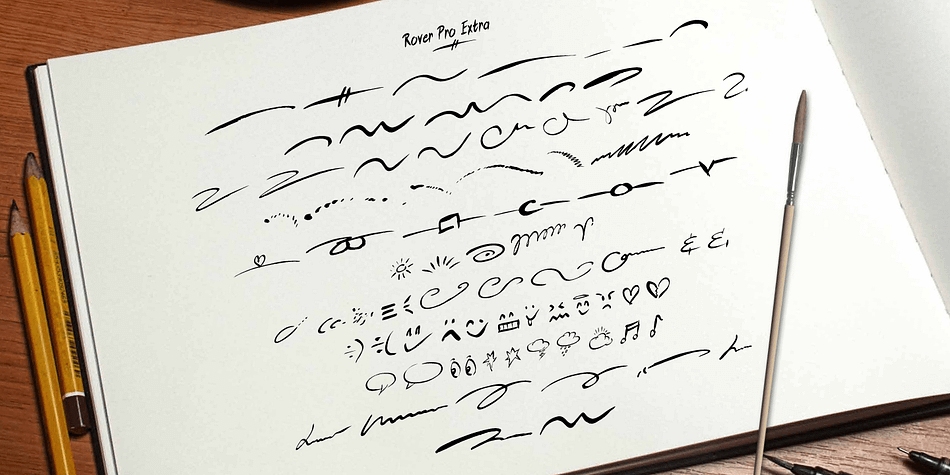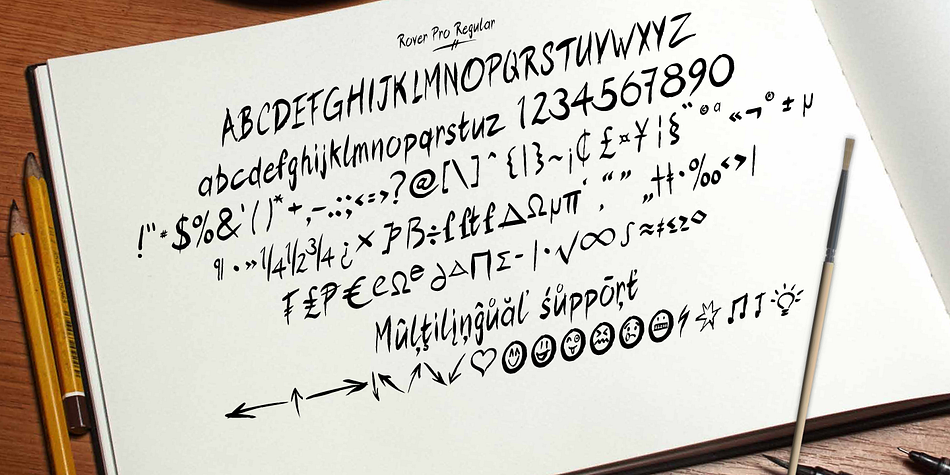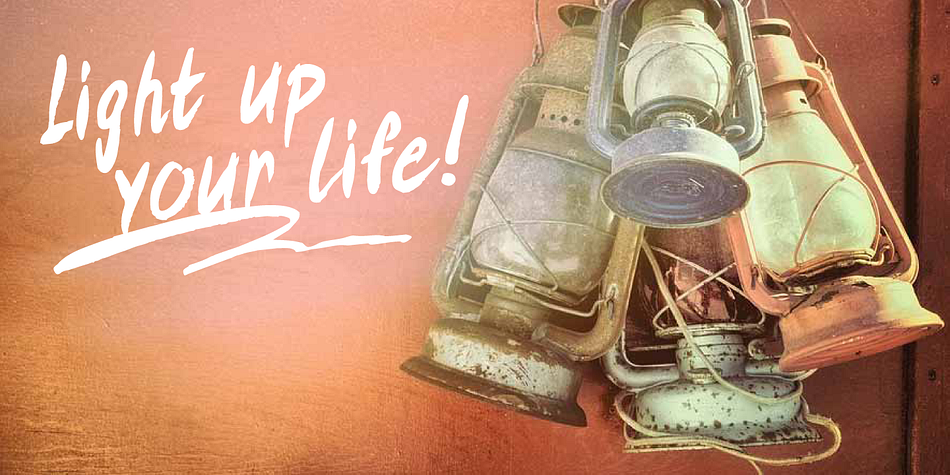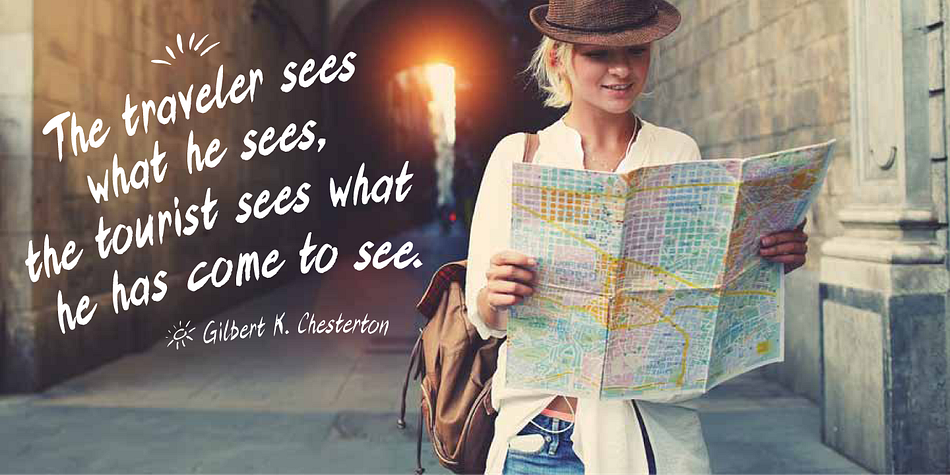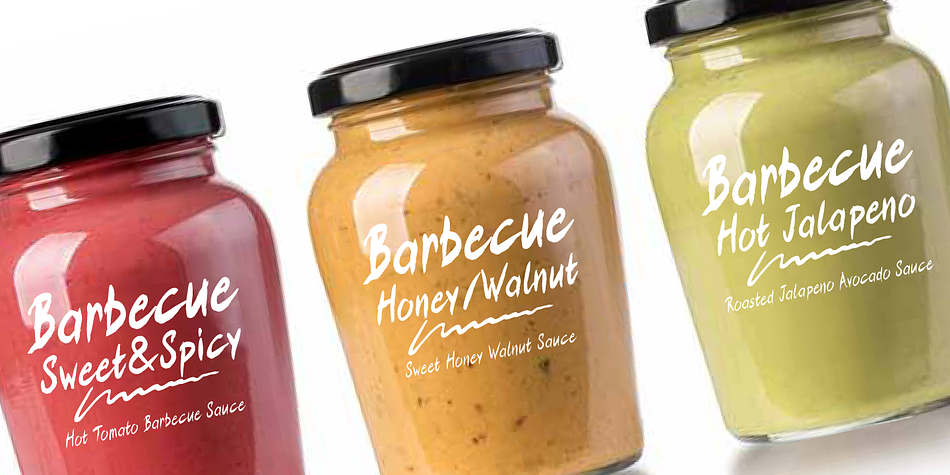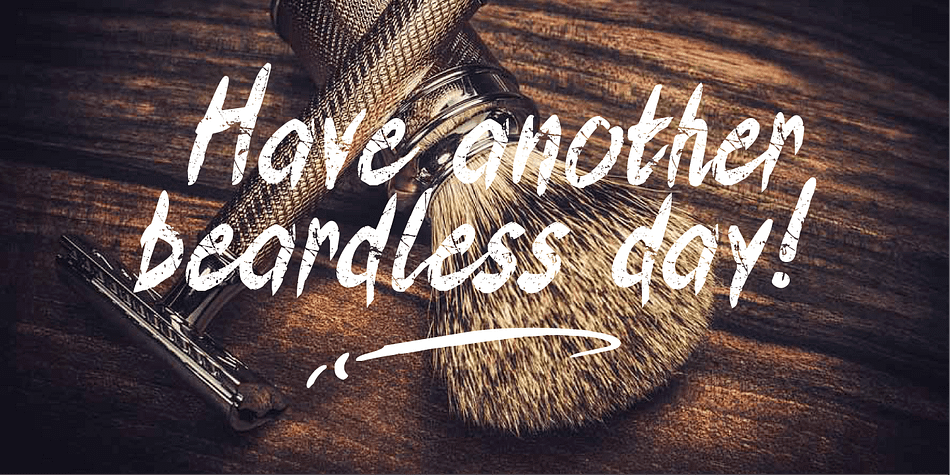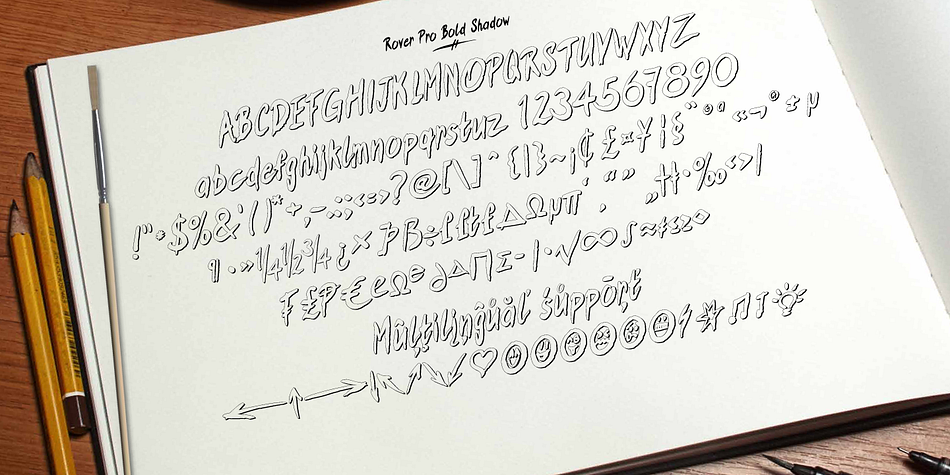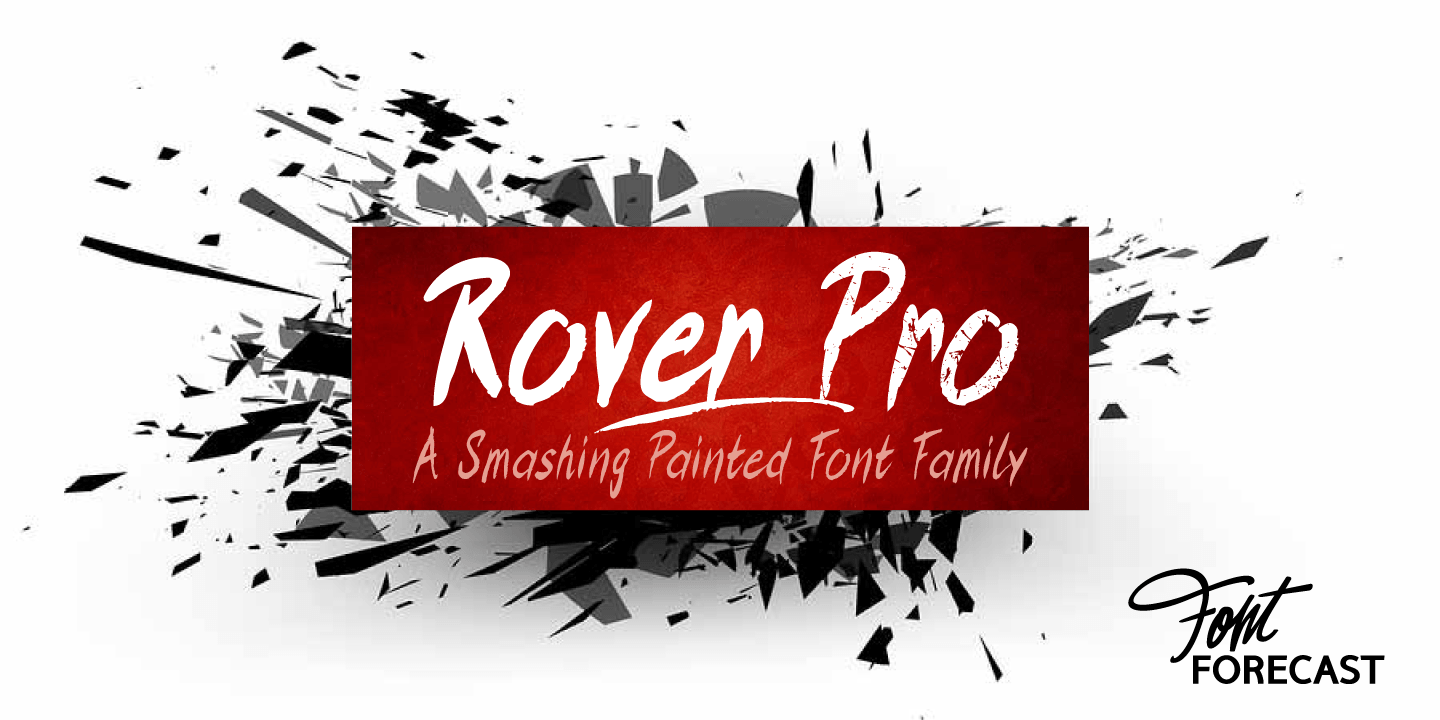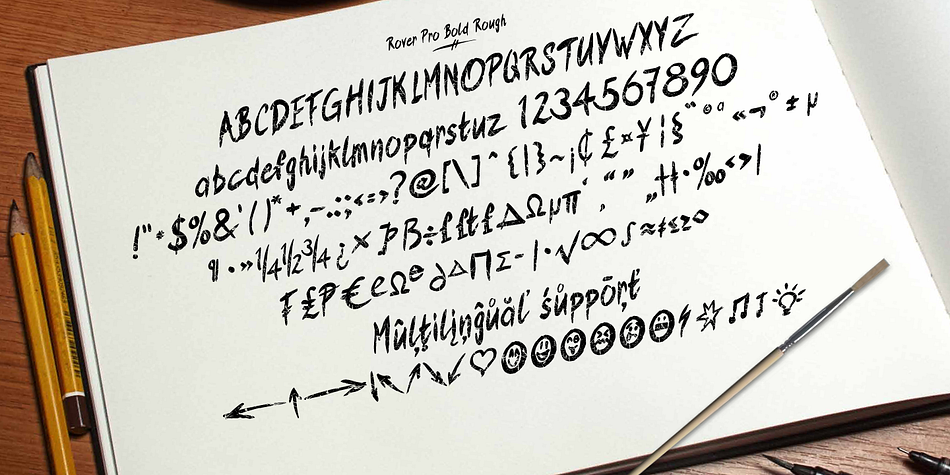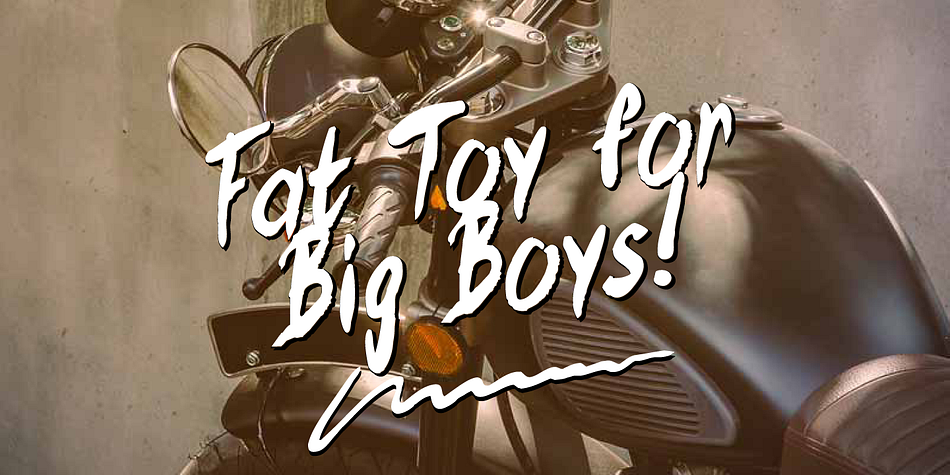
Designed by Rob Versluys, Rover Pro is a comic and dingbat font family. This typeface has five styles and was published by Fontforecast.
Rover Pro is a hand painted font family that comes in 5 styles: Regular, Bold, Bold Shadow, Bold Rough and Extra. It was designed with retail in mind but is also perfectly suited for other uses. The flat brush that was used to hand paint all 424 glyphs creates a nonchalant stroke that adds a personal touch and plenty of pizzaz to your design.
Combine Rover Pro Bold Shadow with the Bold and Rough styles for more variety and beautiful designs. For extra fun, Rover Pro Extra adds another 85 glyphs to play around with.
All in all Rover Pro is a smashing painted font family for virtually every project.